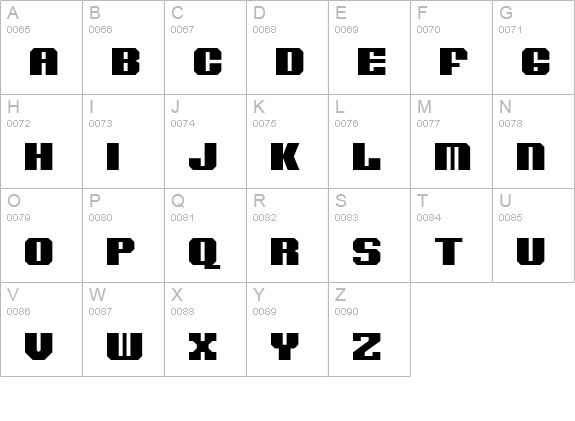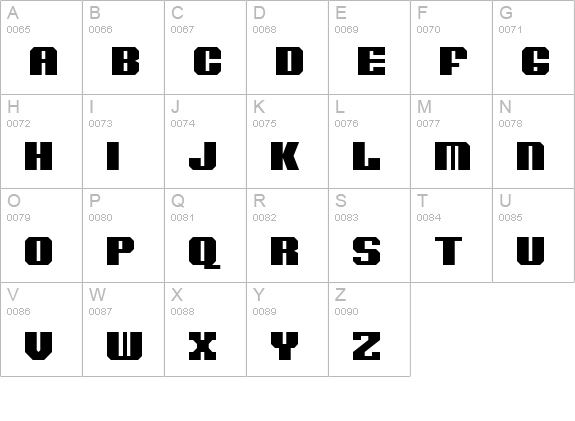
Voortrekker Font Details
Voortrekker font is a bold and striking typeface that exudes a sense of strength and determination. Its sharp angles and clean lines make it perfect for conveying a sense of authority and confidence in any design project. With a modern yet timeless feel, Voortrekker font is versatile and can be used for various purposes, from branding to headlines. The best part? Voortrekker font is completely free to download at FontsMarket.com. This means you can easily access this impressive font and use it in your projects without any cost. Whether you're working on a logo, poster, website, or any other creative endeavor, Voortrekker font will help you make a bold statement and stand out from the crowd. Download it now and unleash the power of this exceptional typeface in your designs!